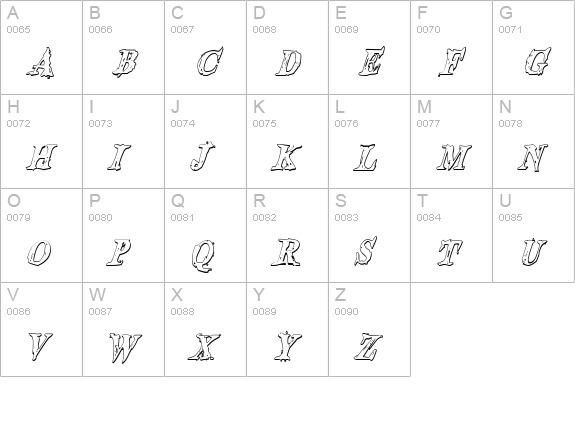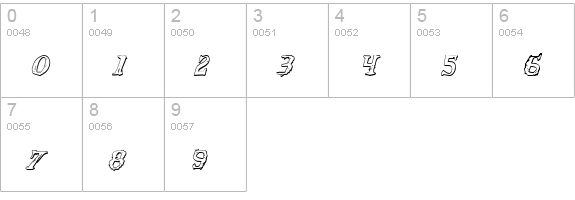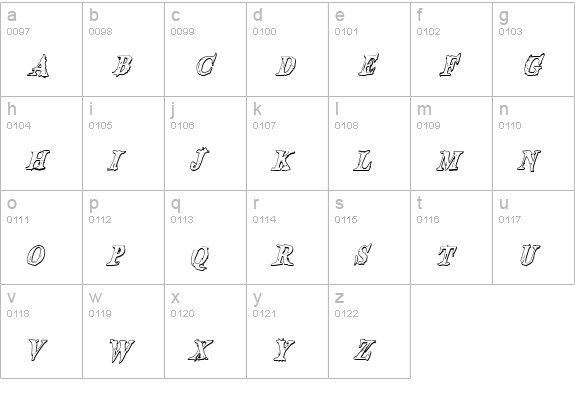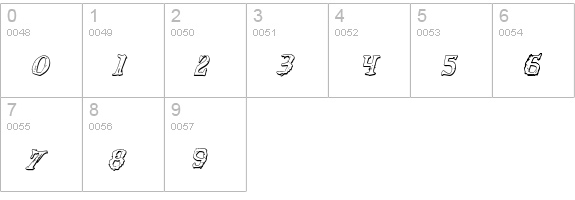
Blood Crow Shadow Condensed Italic is a distinctive, condensed-width, italic variant in the Blood typeface family \xE2\x80\x94 well suited to design and typography projects.
Blood Crow Shadow Condensed Italic is a striking and modern font that exudes an air of mystery and sophistication. With its sleek and edgy design, this font is perfect for projects that require a touch of boldness and elegance. The condensed italic style adds a unique flair to any text, making it stand out from the crowd. What sets Blood Crow Shadow Condensed Italic apart is not only its striking appearance but also the fact that it is available for free download at FontsMarket.com. This means that you can elevate your designs and projects without breaking the bank. Whether you are working on a creative project, branding materials, or any other design endeavor, this font is sure to make a statement and leave a lasting impression. Don't miss out on the opportunity to enhance your work with the captivating Blood Crow Shadow Condensed Italic font. Download it for free today at FontsMarket.com and let your creativity soar.